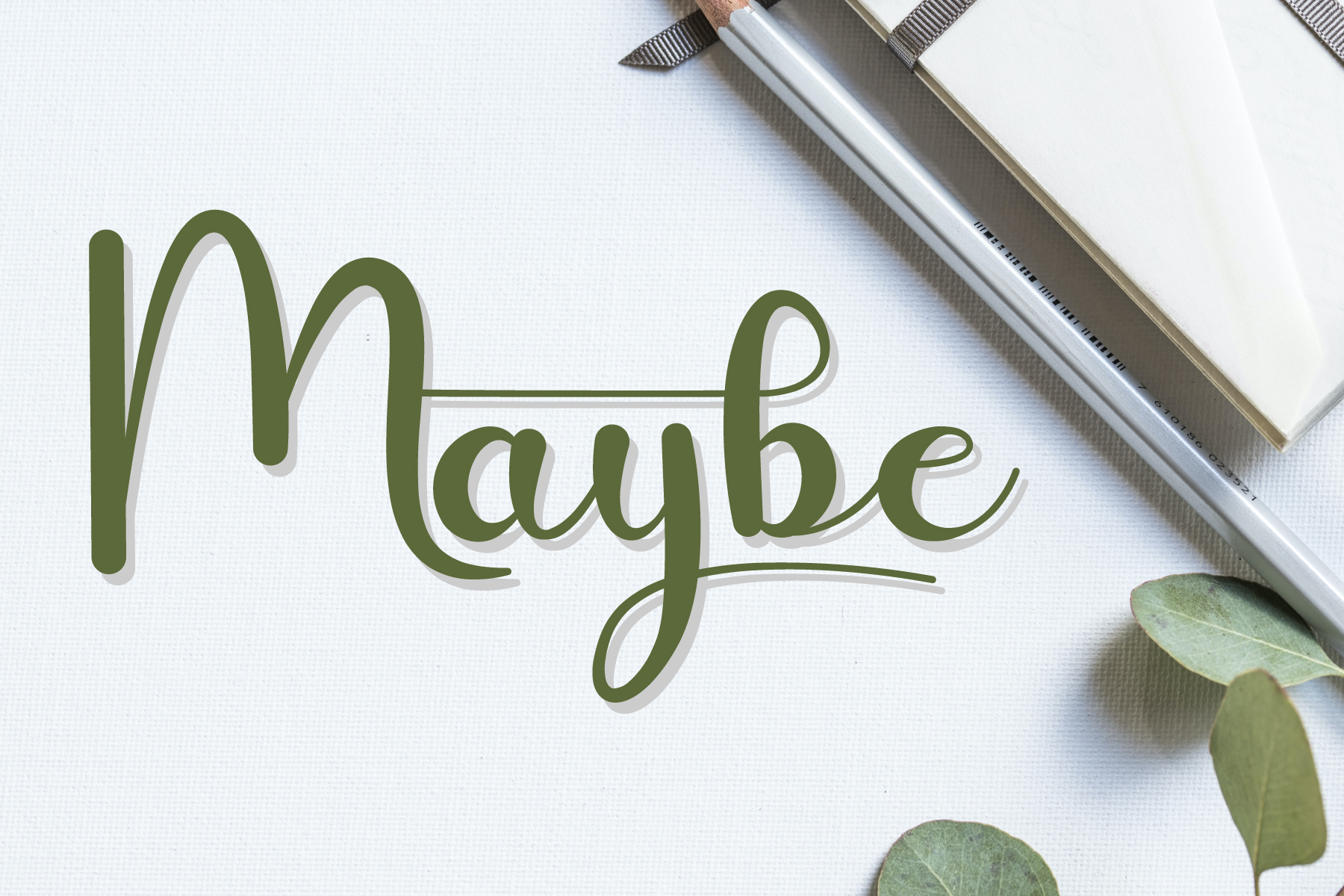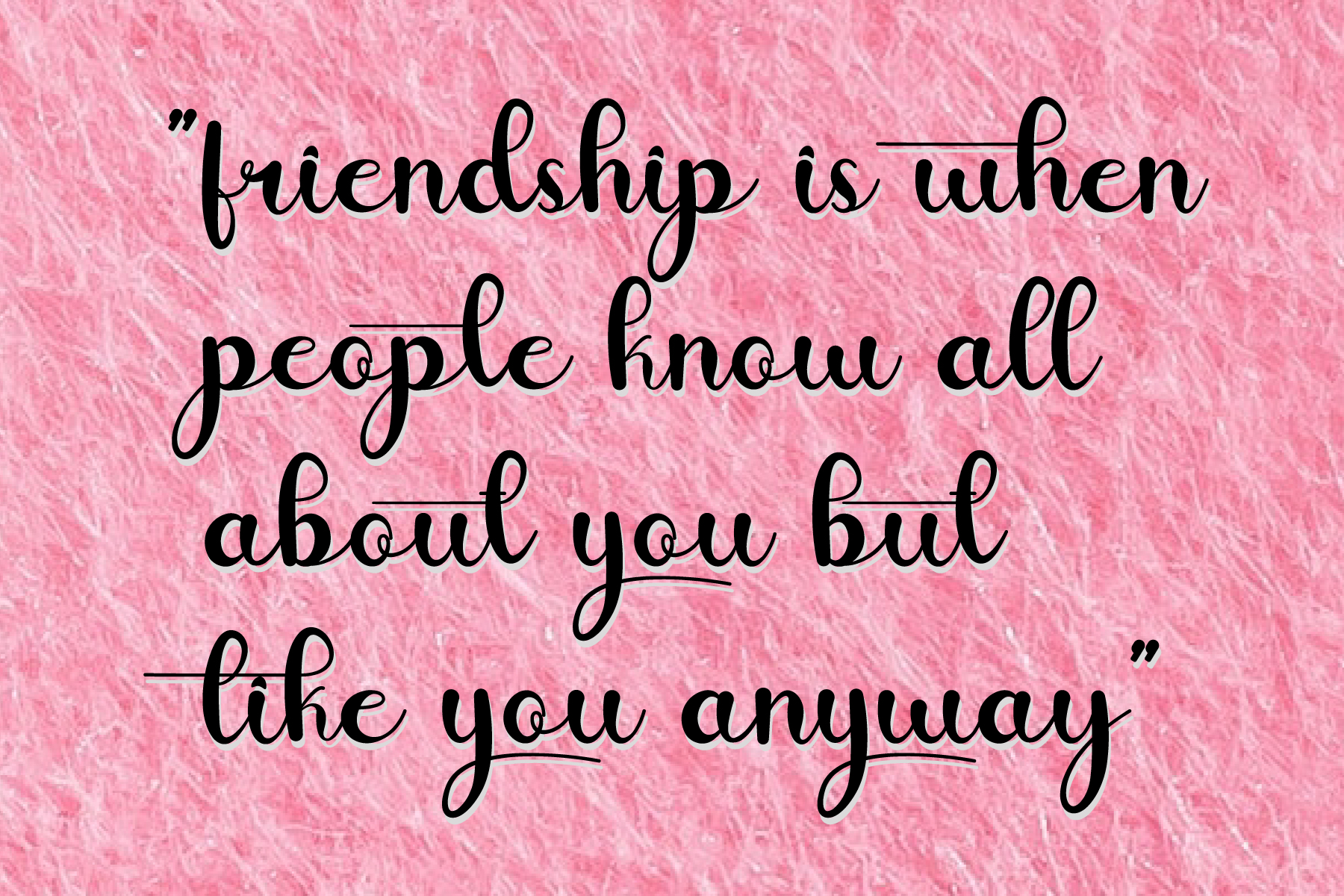
Oyster Script Font
This is a delicate script font. It looks ravishing on wedding invitations, cards and pretty much anything that requires a romantic, sweet touch.